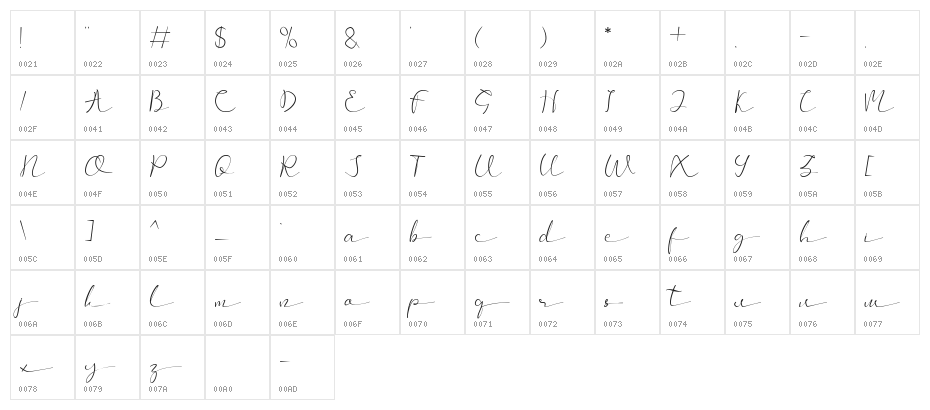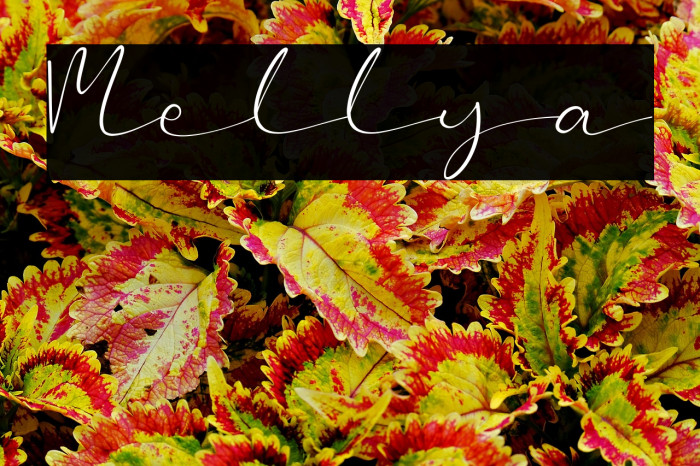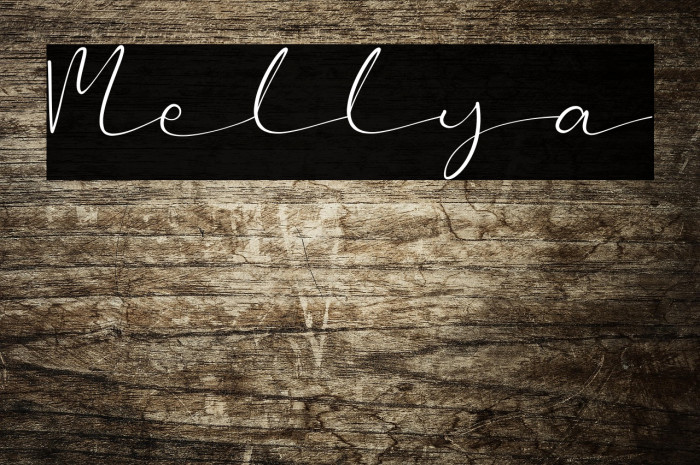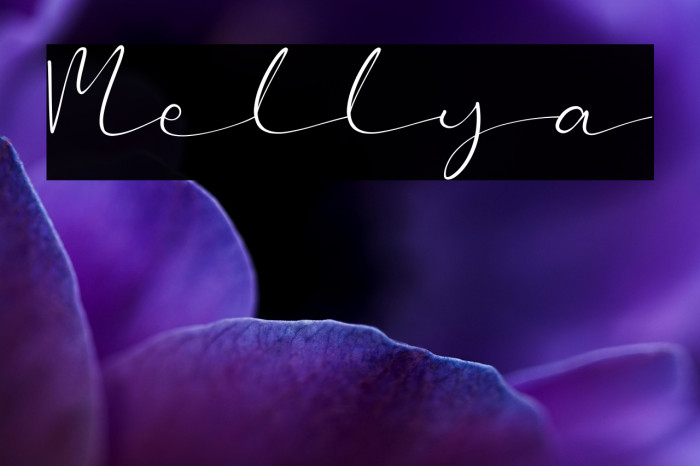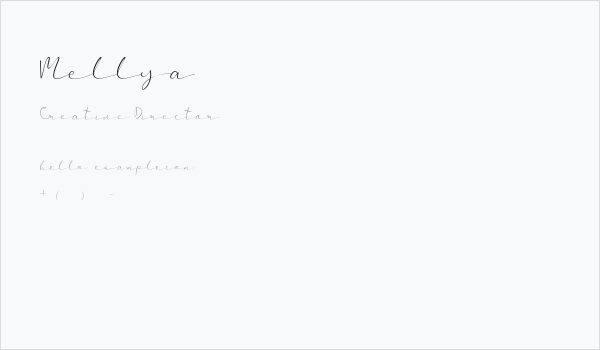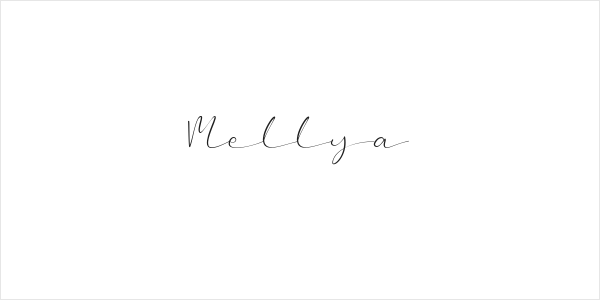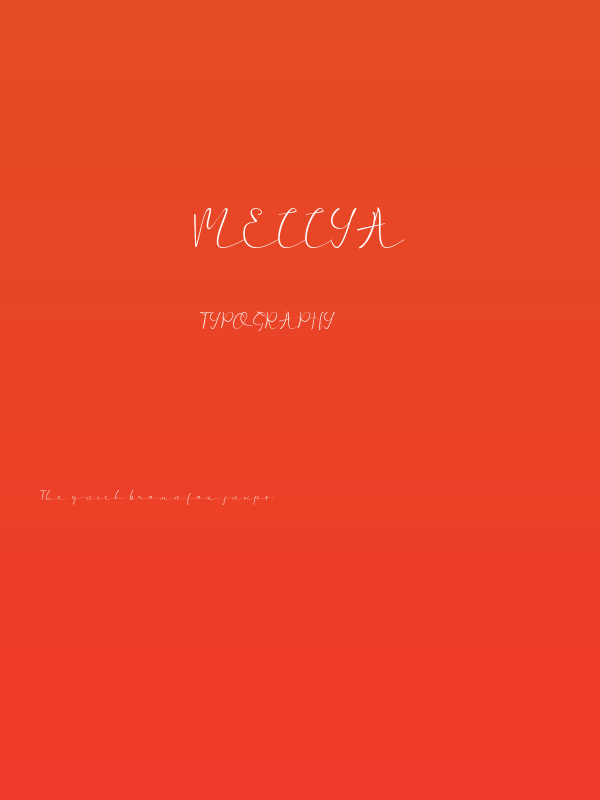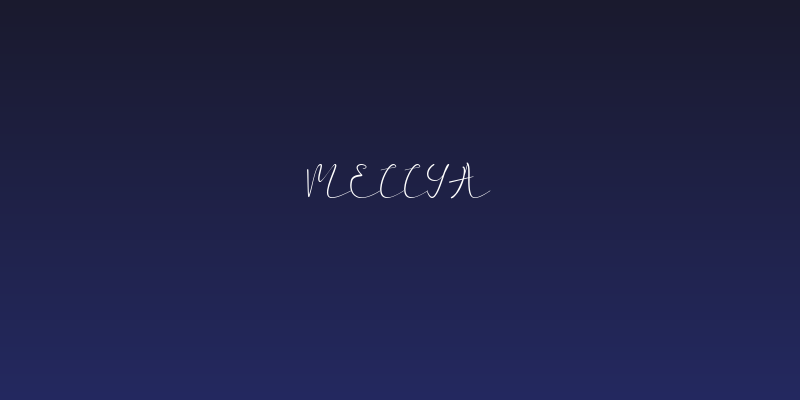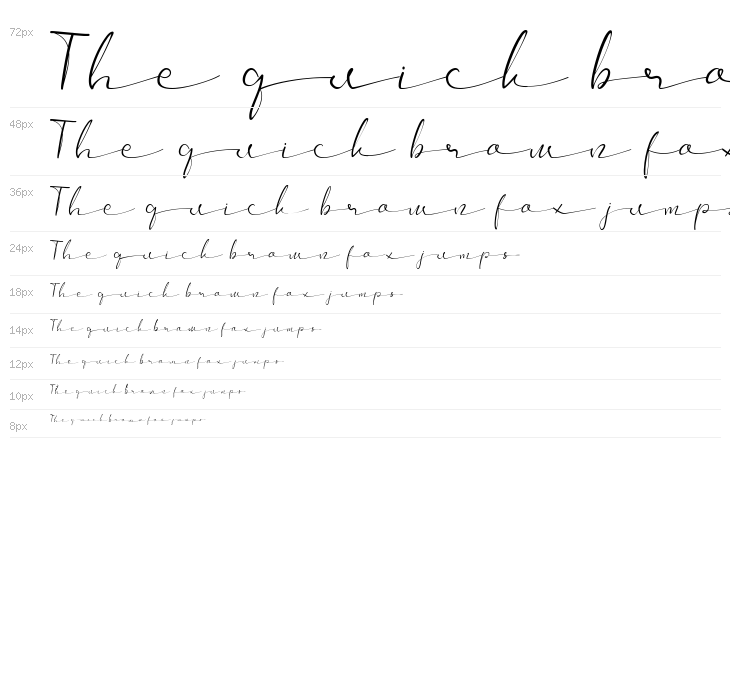
Mellya Font
Mellya Description
This elegant script font features a flowing, cursive style with delicate, thin strokes that convey a sense of sophistication and grace. The uppercase letters are bold and sweeping, while the lowercase letters maintain a consistent, fluid connection, enhancing the font's overall harmony. The characters are slightly slanted, adding a dynamic and lively feel. The font includes a full set of uppercase and lowercase letters, numerals, and a selection of special characters, making it versatile for various design needs. Its refined appearance is perfect for projects that require a touch of elegance and class.